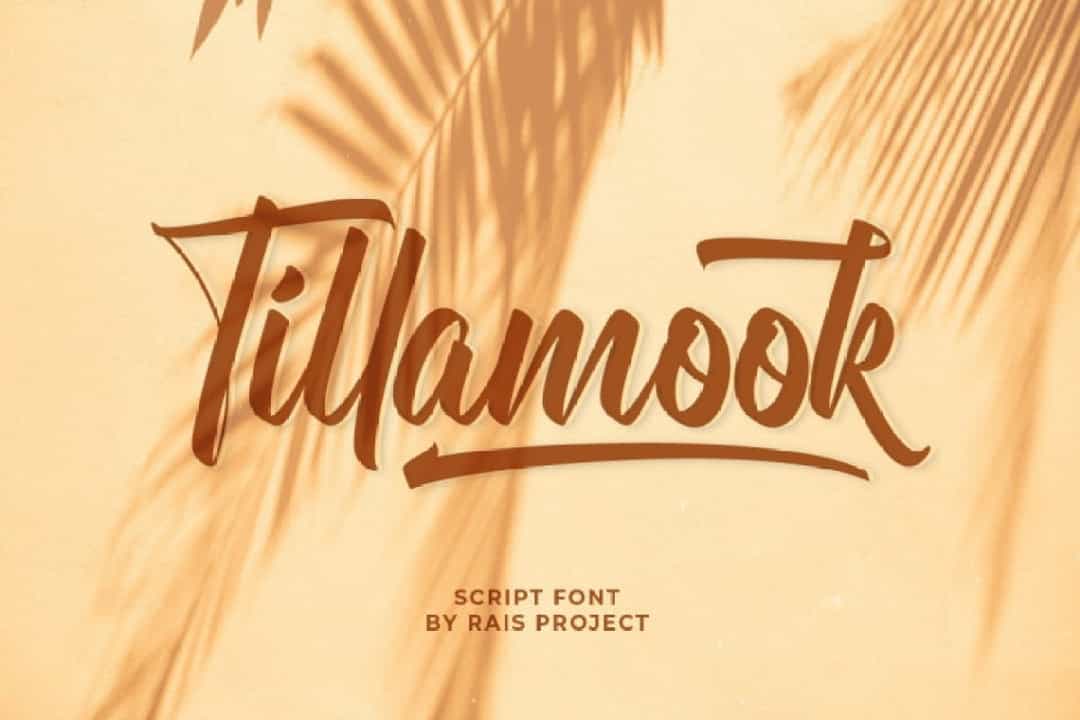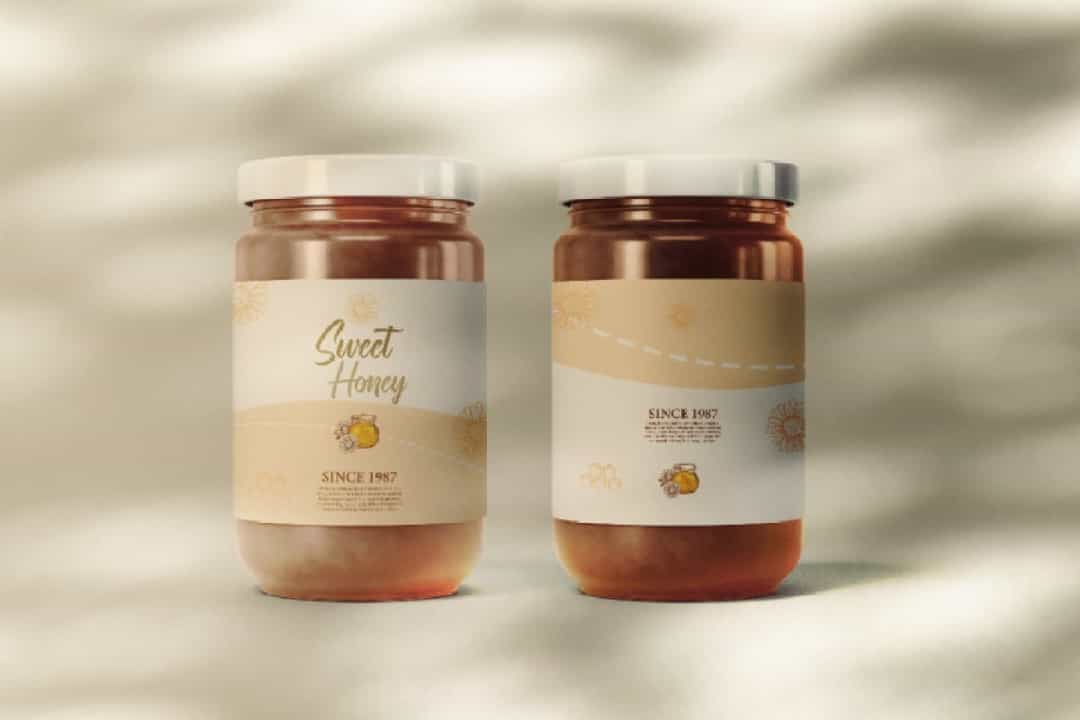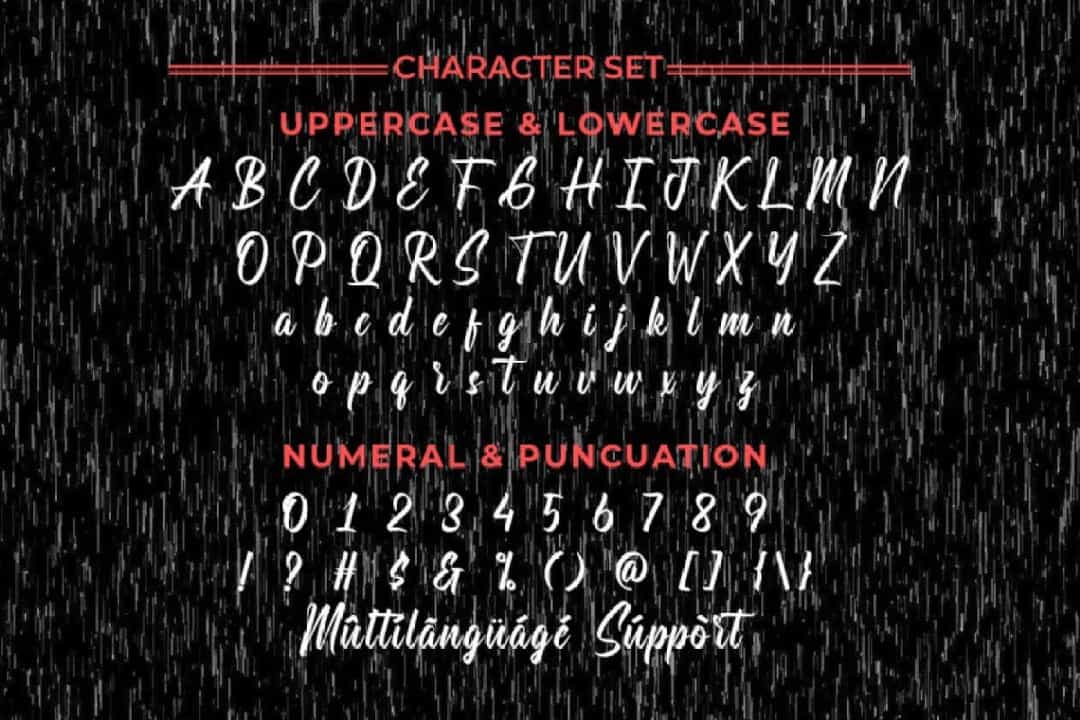
Tillamook Typeface is an elegant brush-script font. Crafted by hand for use in projects including headlines, promotions and event branding, advertisements magazines signage invites stationery social media posts labels labels other projects requiring distinctive design elements like vintage horror movie Game Magazine Music Video Racing Sports etc